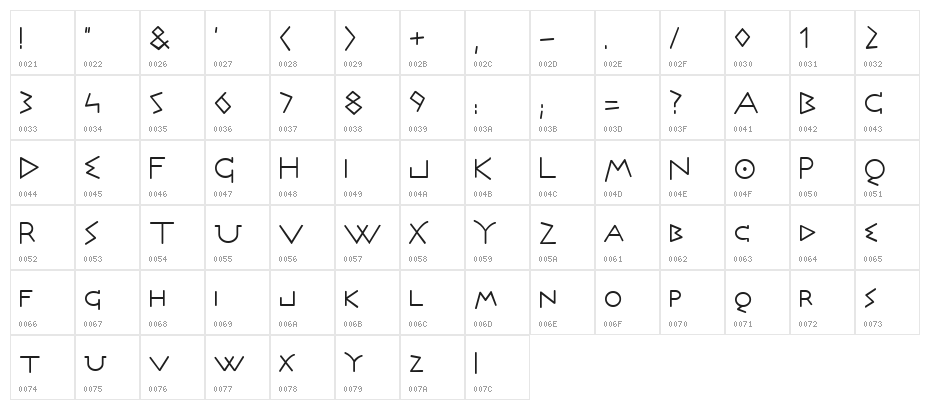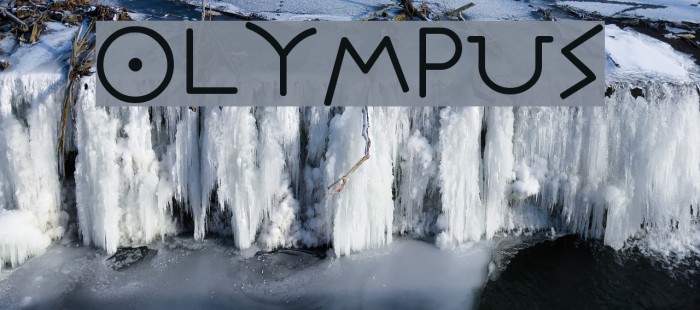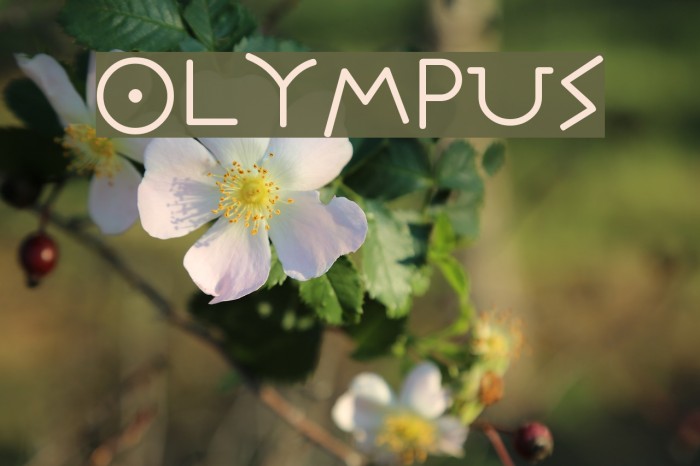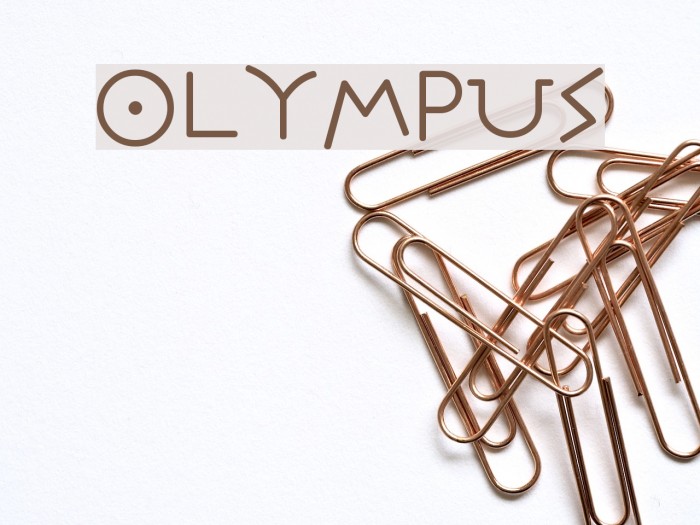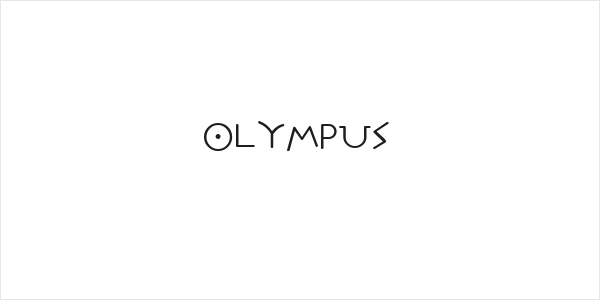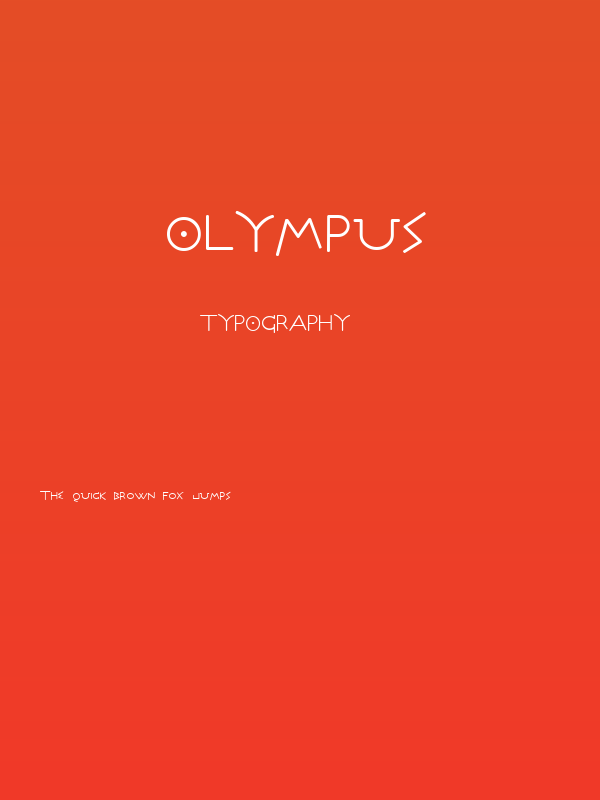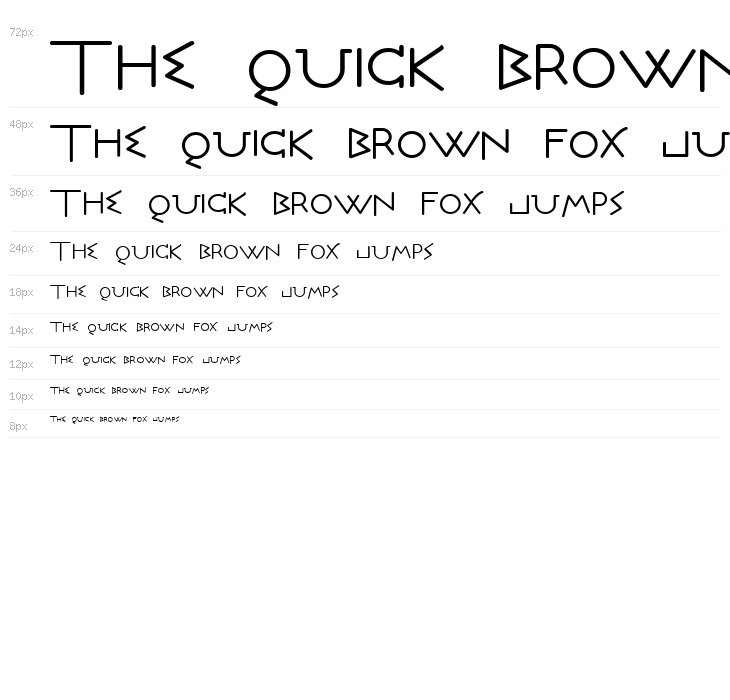
Olympus Font
Olympus Description
This font features a unique, geometric style with sharp angles and clean lines, reminiscent of ancient Greek or Roman inscriptions. The uppercase letters are bold and striking, with a consistent height and width that create a sense of uniformity. The lowercase letters maintain the geometric theme, offering a modern twist on classic letterforms. Numbers are similarly styled, with distinct, angular shapes that ensure readability. Special characters are designed to match the overall aesthetic, providing a cohesive look across all glyphs. The font's design is both decorative and functional, making it suitable for a variety of creative applications.
Proposed ProjectsThis font is perfect for branding, logos, posters, and any project that requires a bold, distinctive typeface with a historical flair.